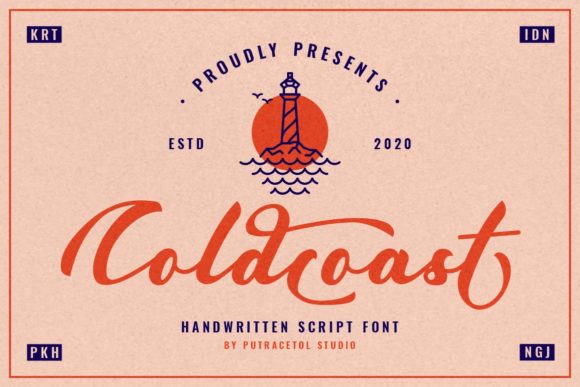
Coldcoast Font: Elevate Your Designs with a Charming Handwritten Script
Are you tired of using the same old fonts in your designs? Look no further than Coldcoast, a beautiful handwritten script that is sure to add a touch of elegance and sophistication to any project. This stunning font is PUA encoded, making it easy to access all of the glyphs and swashes, and features a unique and timeless style that will set your designs apart from the rest.
What Makes Coldcoast Font So Special?
Coldcoast is a charming handwritten script that boasts a range of features that make it perfect for designers and crafters. Some of the key features of this font include:
- PUA Encoding: Coldcoast is PUA encoded, which means that you can access all of the glyphs and swashes with ease. This makes it simple to create beautiful and unique designs that showcase the full range of the font’s capabilities.
- Varying Baseline: The font features a varying baseline, which gives it a natural and organic feel. This makes it perfect for creating designs that need to look handmade or bespoke.
- Smooth Lines: Coldcoast has smooth, flowing lines that give it a sense of elegance and sophistication. This makes it perfect for creating designs that need to look high-end or luxurious.
- Gorgeous Glyphs: The font comes with a range of gorgeous glyphs, including stunning alternates that will add a touch of personality to your designs.
How to Use Coldcoast Font in Your Designs
Coldcoast is an incredibly versatile font that can be used in a wide range of design projects. Here are a few ideas to get you started:
- Wedding Invitations: Coldcoast is perfect for creating beautiful wedding invitations that need to look elegant and sophisticated.
- Branding and Packaging: The font’s unique and timeless style makes it perfect for creating branding and packaging designs that need to stand out from the crowd.
- Signage and Posters: Coldcoast can be used to create stunning signage and posters that need to grab attention and make a lasting impression.
- Digital Designs: The font can also be used in digital designs, such as social media graphics, email headers, and website titles.
Tips and Tricks for Getting the Most Out of Coldcoast Font
Here are a few tips and tricks to help you get the most out of Coldcoast font:
- Experiment with Different Sizes: Coldcoast looks great in a range of sizes, from small and delicate to large and bold. Experiment with different sizes to find the one that works best for your design.
- Play with Glyphs and Swashes: The font’s glyphs and swashes can add a touch of personality to your designs. Experiment with different combinations to find the one that works best for your project.
- Pair it with Other Fonts: Coldcoast can be paired with other fonts to create a unique and interesting look. Experiment with different pairings to find the one that works best for your design.
Coldcoast font is a charming handwritten script that is sure to elevate your designs to the next level. With its PUA encoding, varying baseline, smooth lines, gorgeous glyphs, and stunning alternates, this font has everything you need to create spectacular designs. Whether you’re a designer, crafter, or DIY enthusiast, Coldcoast is a must-have font that will help you to create beautiful and unique designs that stand out from the crowd.